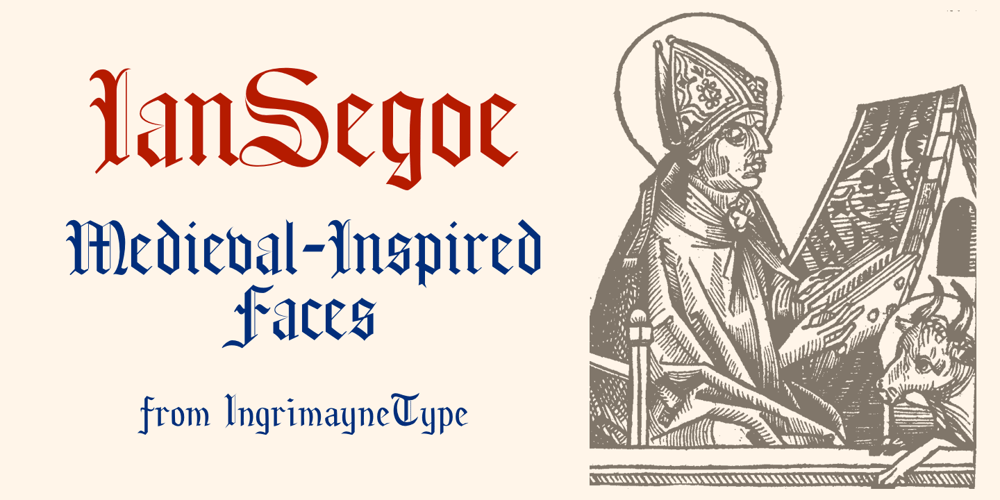
Ian Segoe Font Family was designed by Robert Schenk and published by Ingrimayne Type. Ian Segoe contains 4 styles and family package options. The faces of IanSegoe were early attempts by IngrimayneType to construct medieval-looking faces. They drew inspiration from several medieval-themed fonts that were available at the time (1990). The upper-case letters are similar but not identical in the two faces but the lower-case letters are completely different.